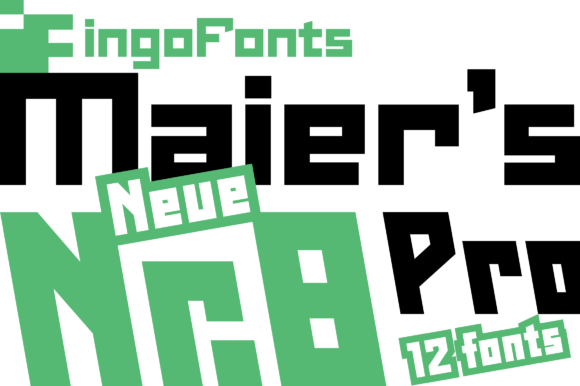
Transport your designs to a new level with Maier's Neue Nr.8 Font, the ultimate Sans Serif font family that breathes life into your creative endeavors. This font is a stunning fusion of geometry and elegance, meticulously designed by ingoFonts to deliver a captivating visual experience.
Step into the world of Maier's Neue Nr.8, where clean lines, sharp angles, and a touch of playfulness come together to create a truly unique typographic journey. Inspired by the timeless designs of the Bauhaus movement, this font is a masterpiece of simplicity and functionality.
Unlock the power of exceptional typography and let your designs shine with Maier's Neue Nr.8. Its meticulously crafted characters exude sophistication and precision, adding a touch of brilliance to any project.
With a wide range of weights and styles, Maier's Neue Nr.8 adapts seamlessly to any design challenge. Whether you're creating eye-catching logos, sleek brochures, or compelling website layouts, this font family has you covered.
Let your creativity soar as you explore the endless possibilities of Maier's Neue Nr.8. Transform your designs into works of art, captivating audiences with its timeless charm and modern appeal.